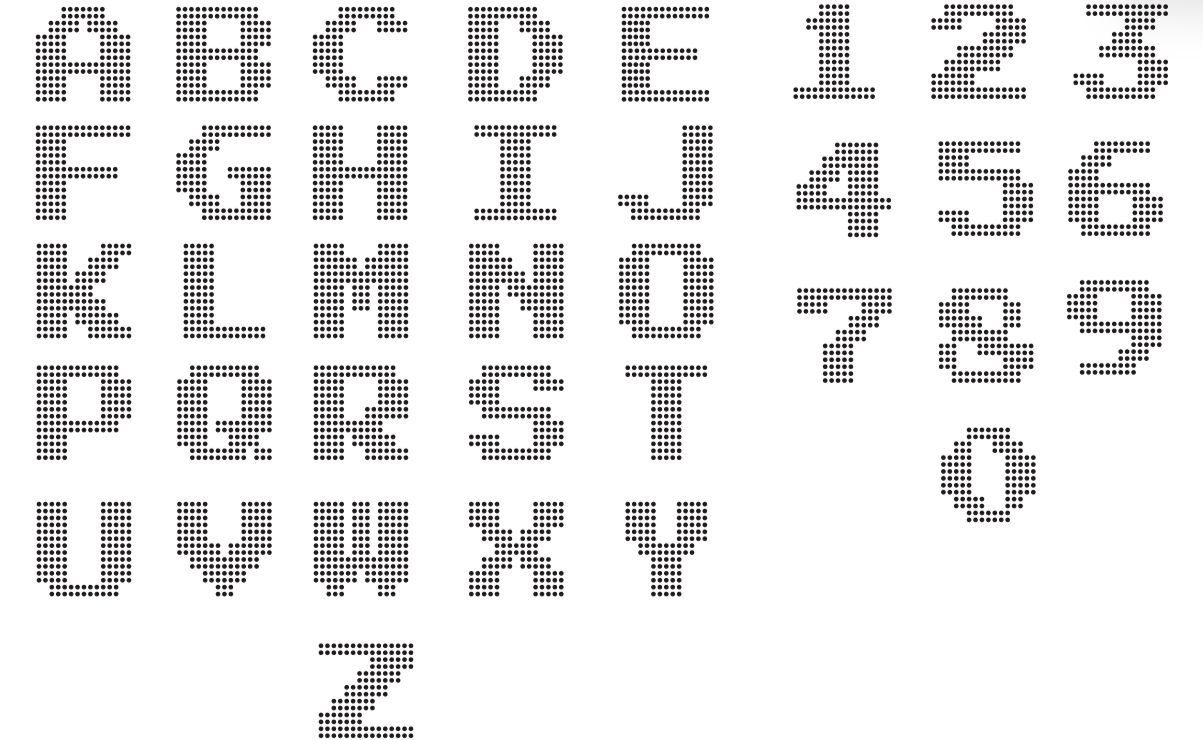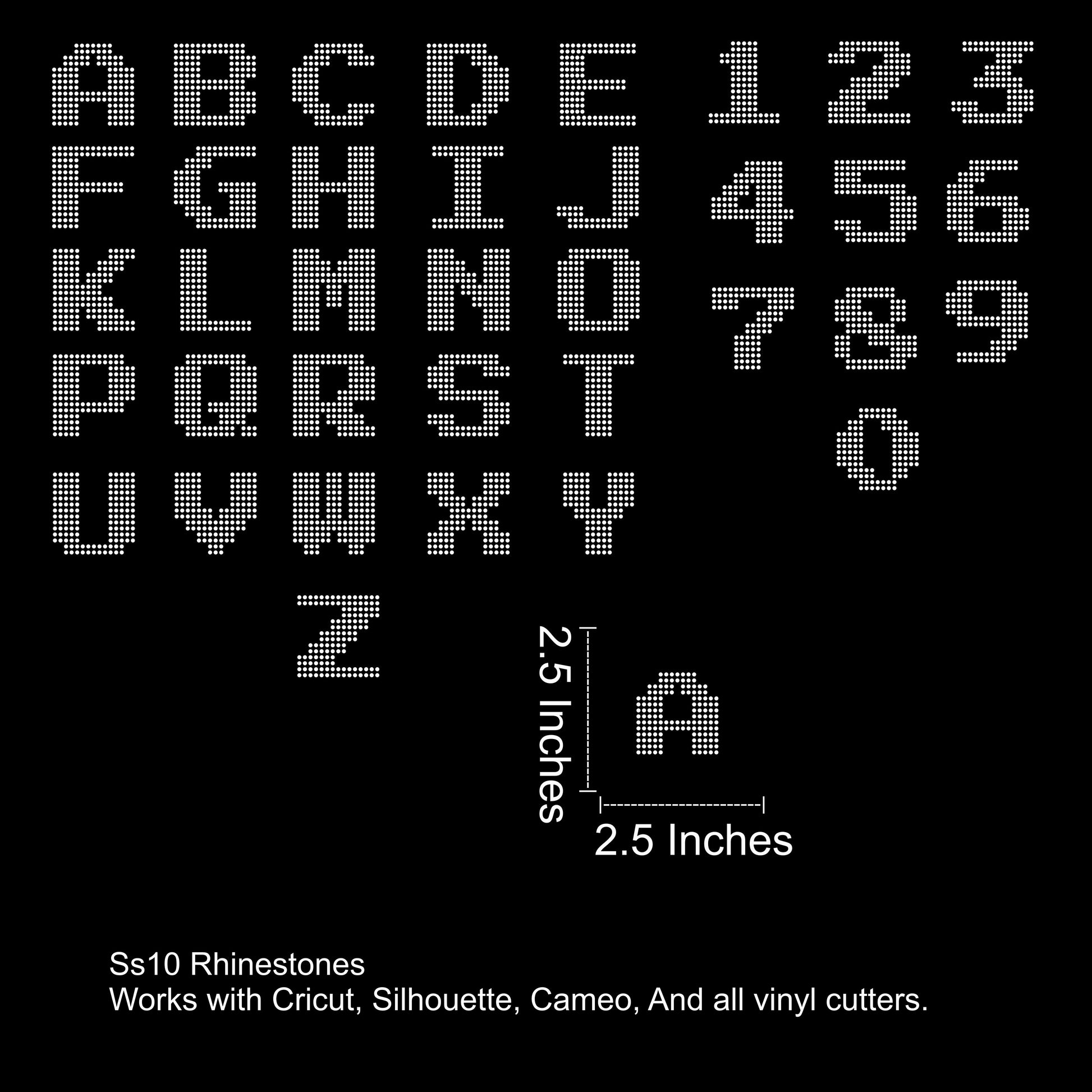
Pixel Block Font Rhinestone SVG File 2.5 Inches Tall
Pixel Block – Rhinestone Font SVG (SS10 Size Compatible)
Bring retro energy to your next design with Pixel Block, a bold, grid-style rhinestone font inspired by classic 8-bit and pixel graphics. Built for SS10 rhinestones, this all-caps font delivers clean lines and nostalgic vibes — perfect for standout, blocky designs.
Font Details:
• Capital letters A–Z
• Numbers 0–9
• All characters approx. 2.5 inches tall
• Sharp pixel-style layout with rhinestone-ready spacing